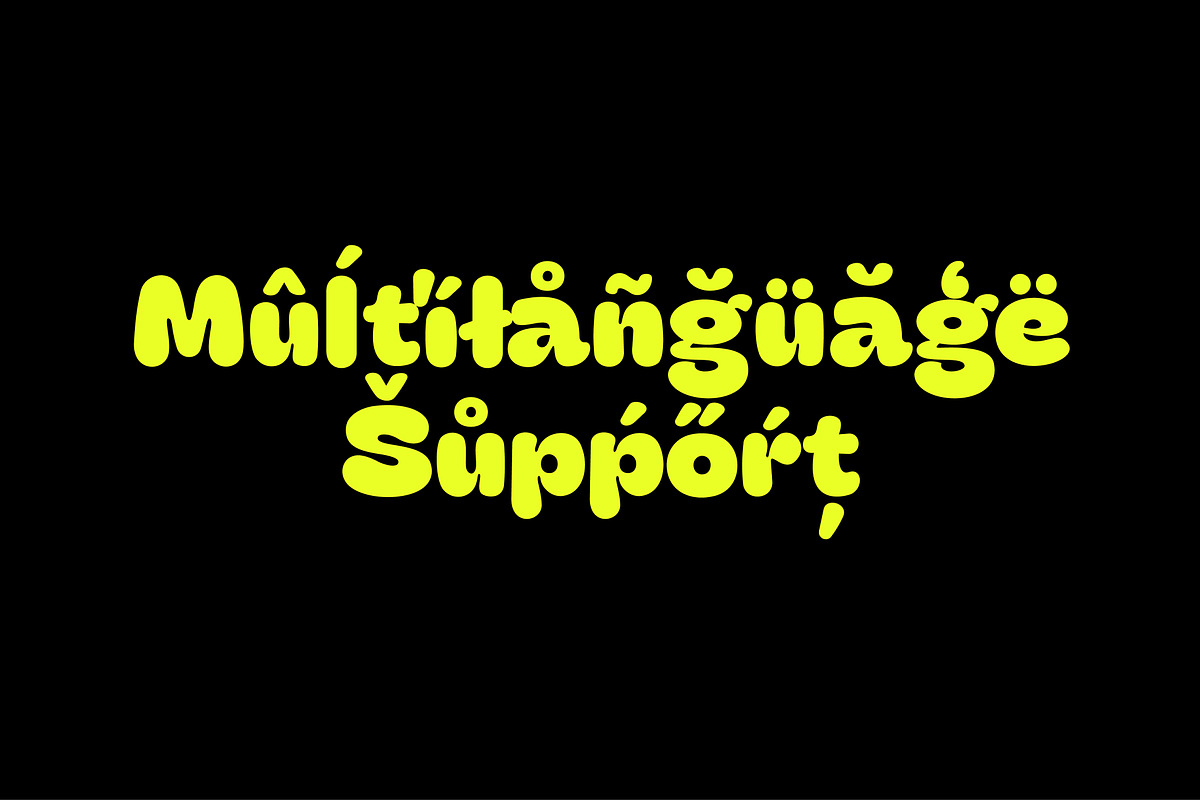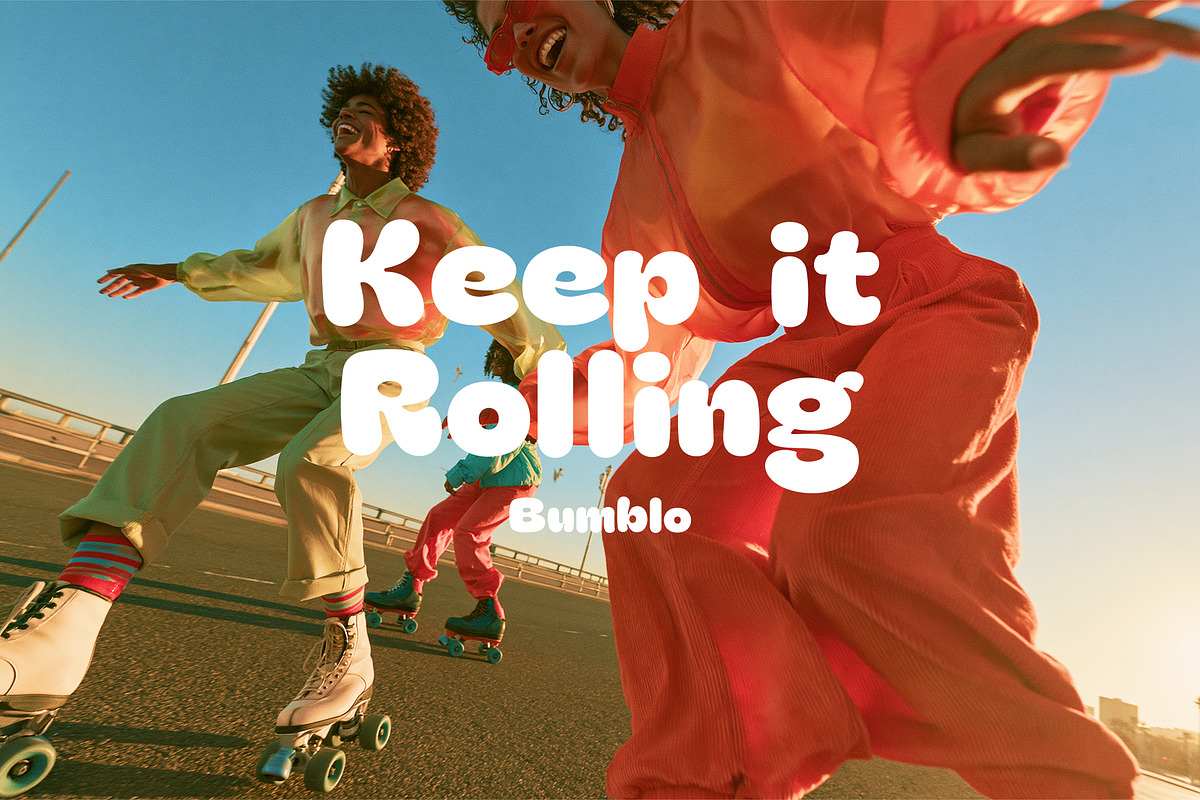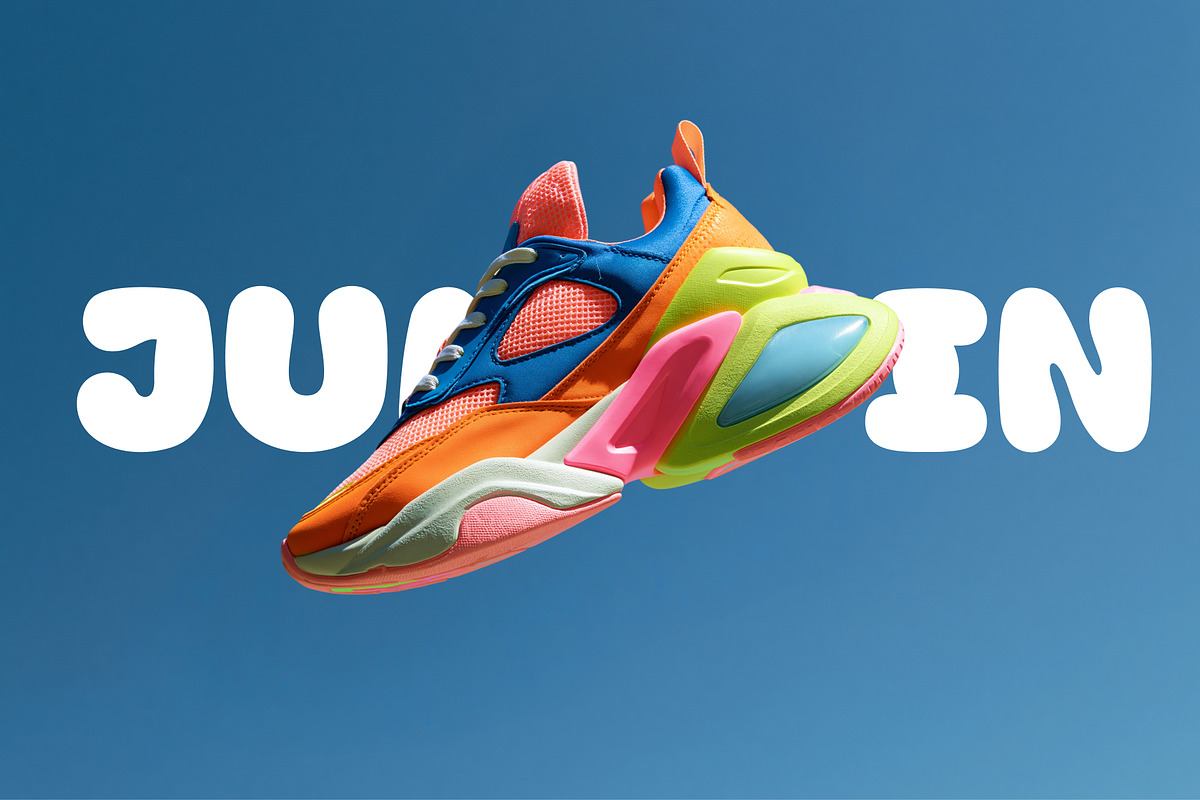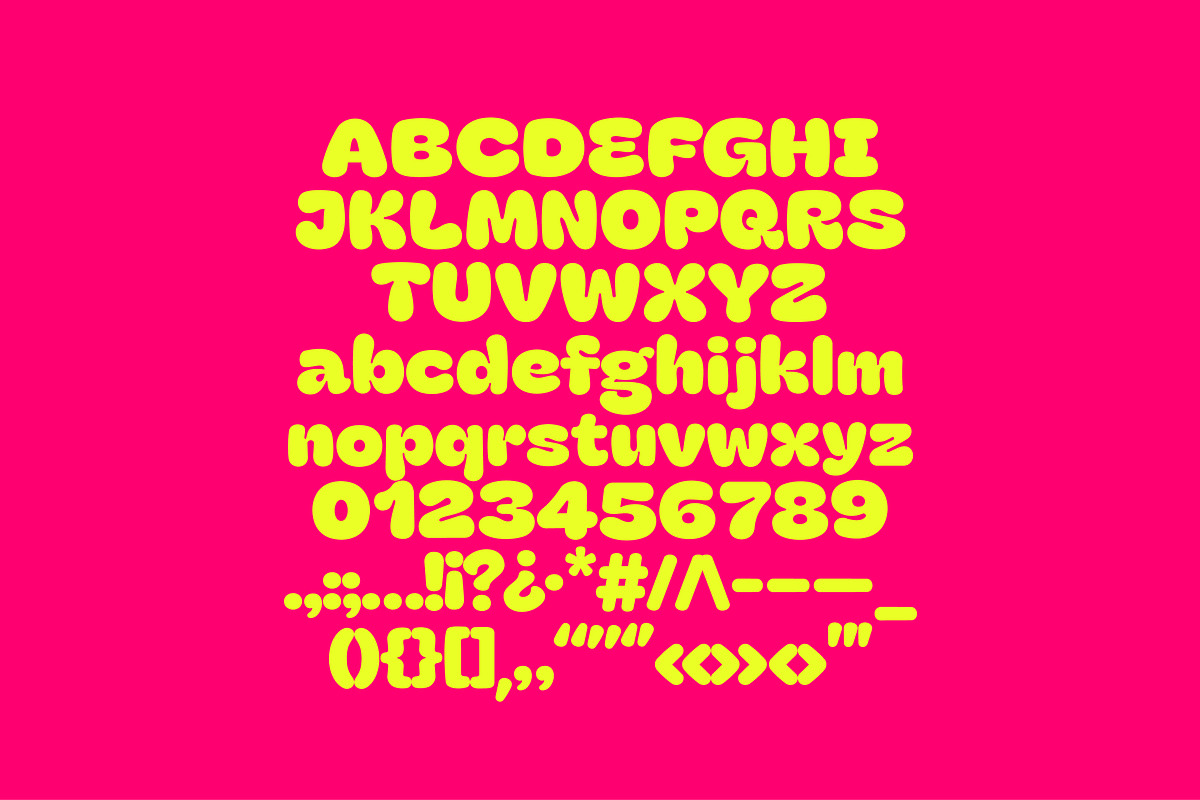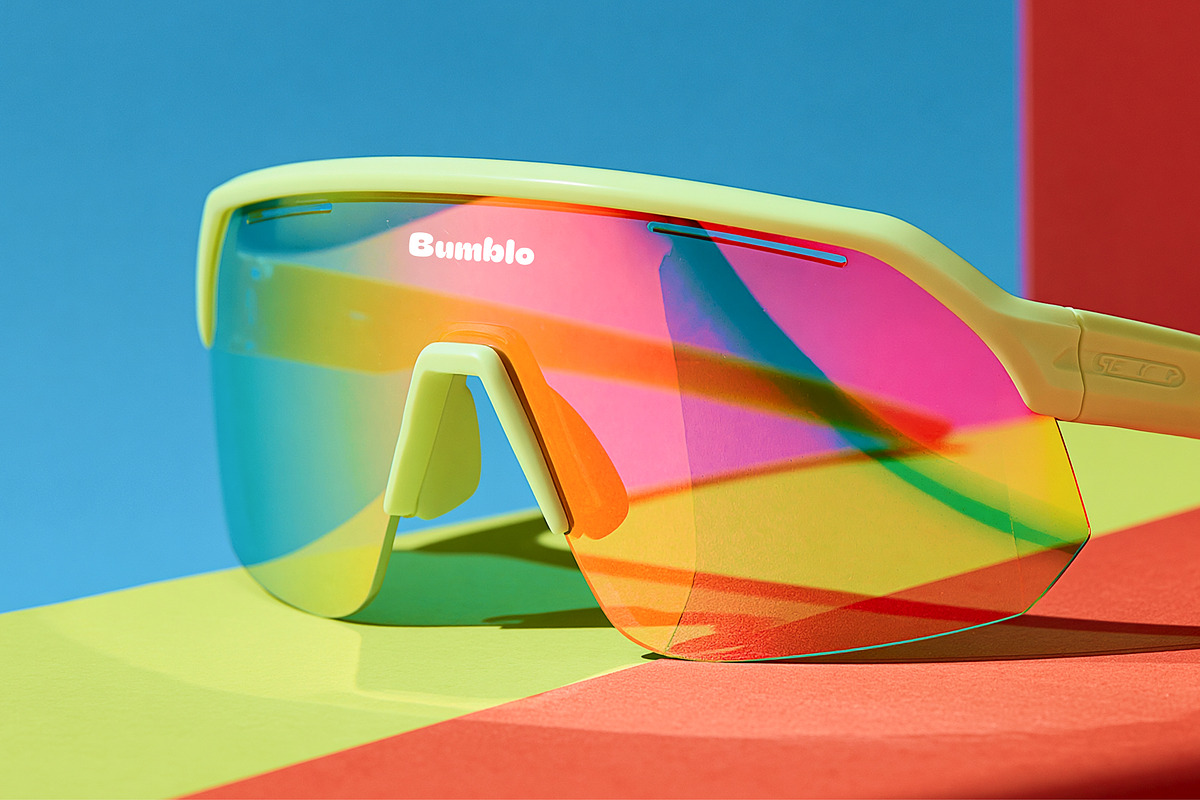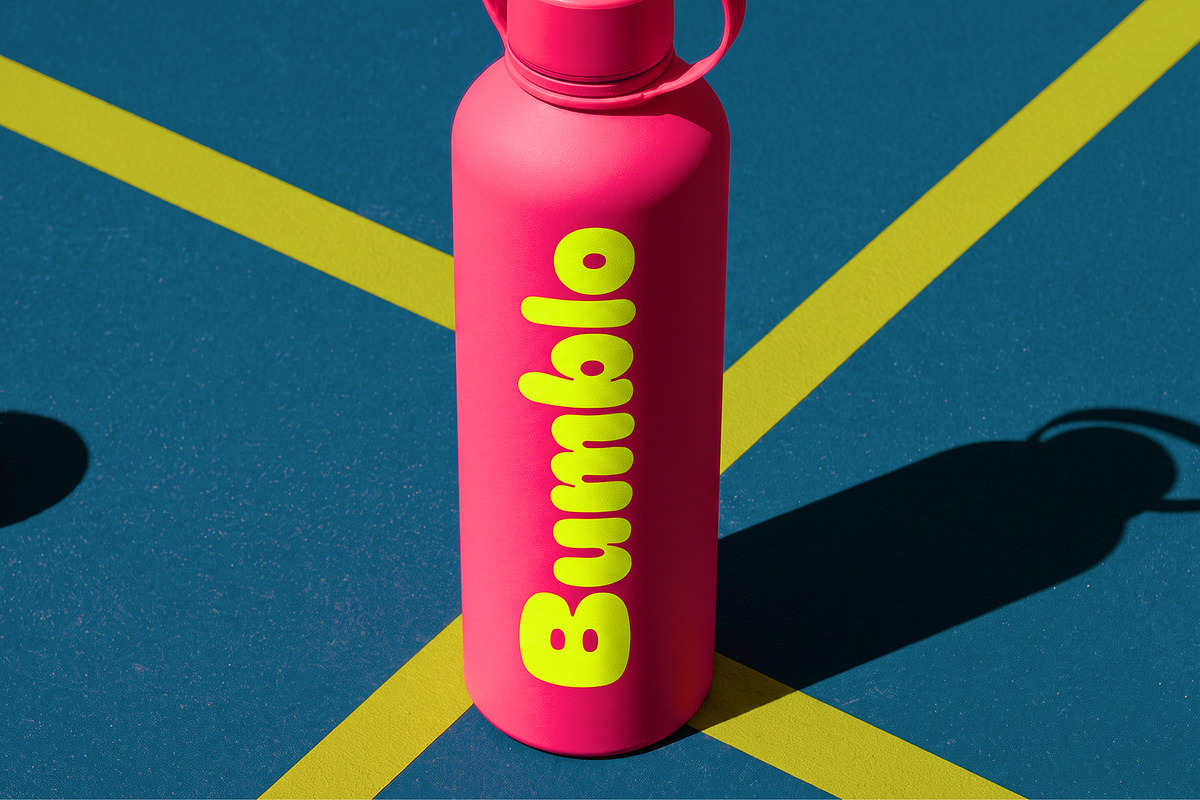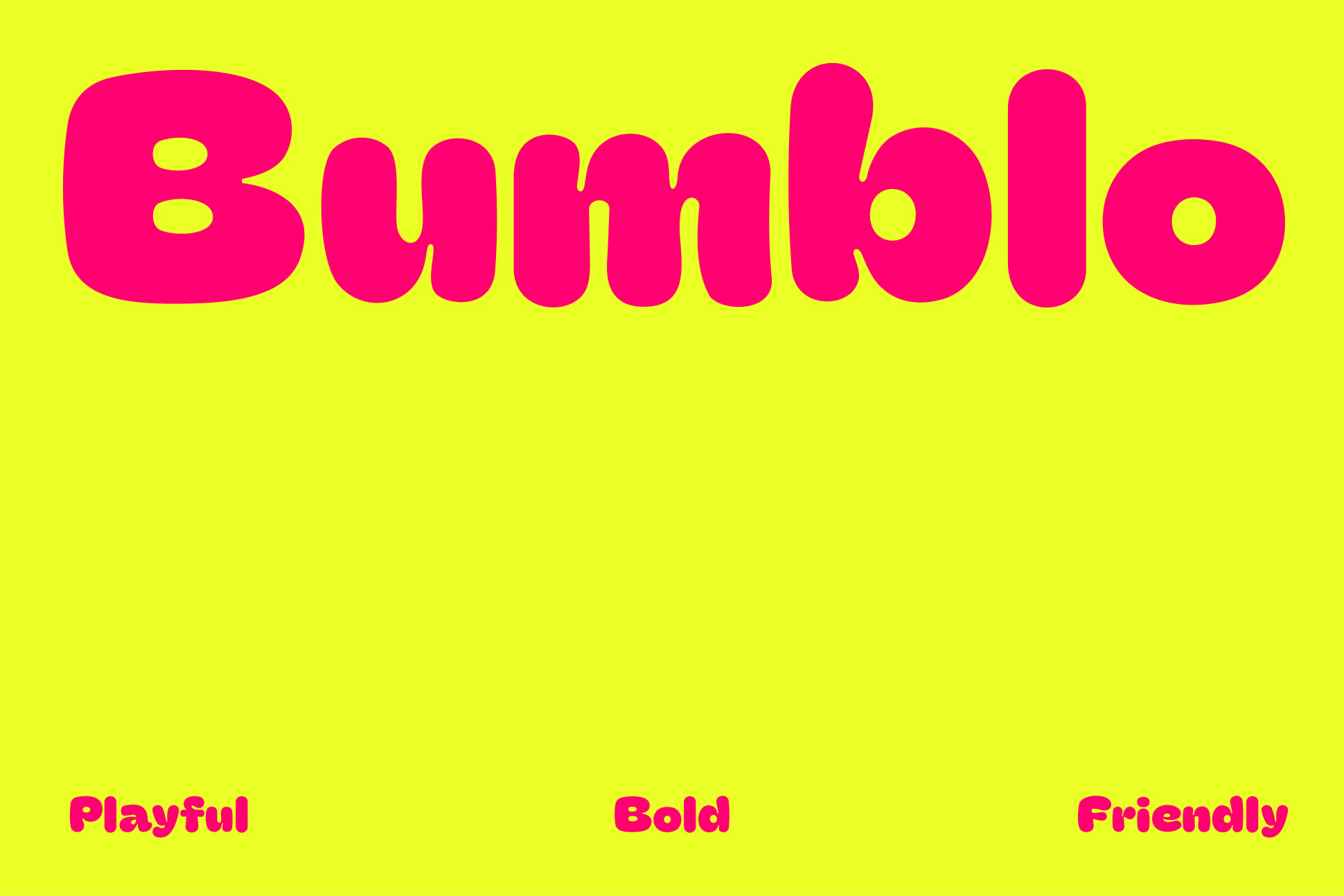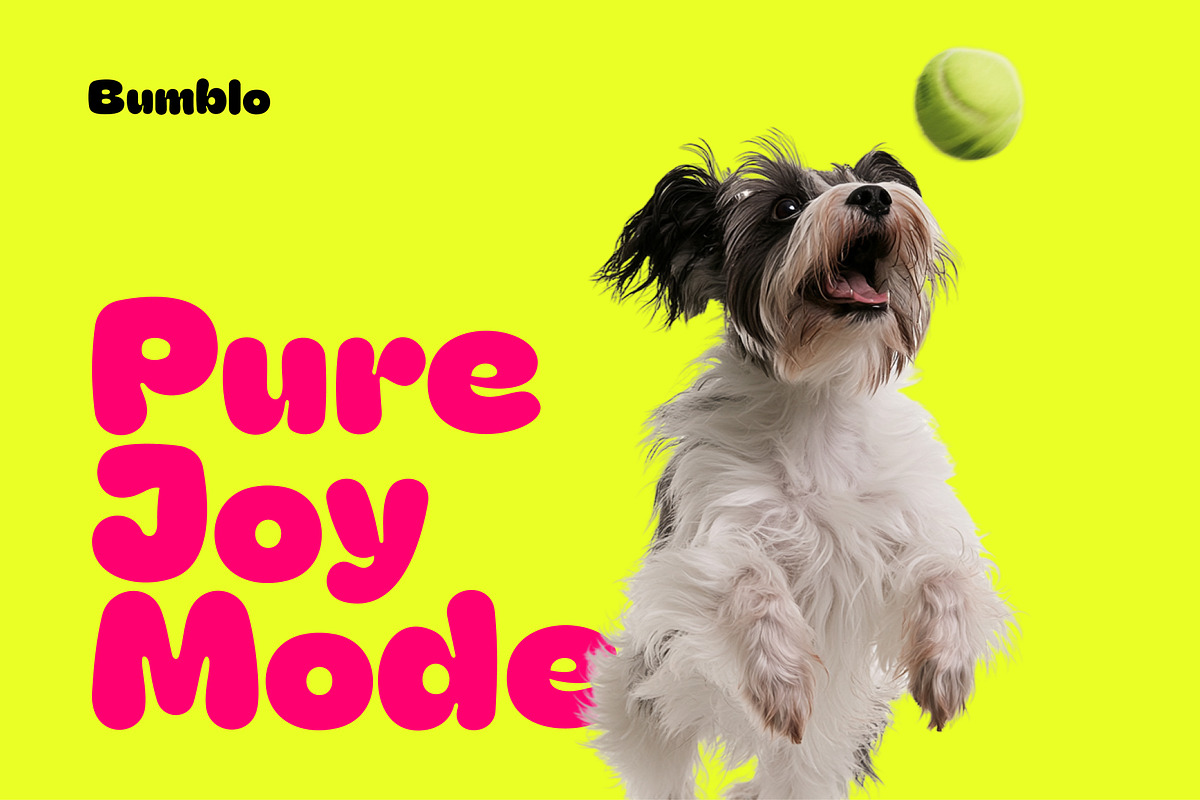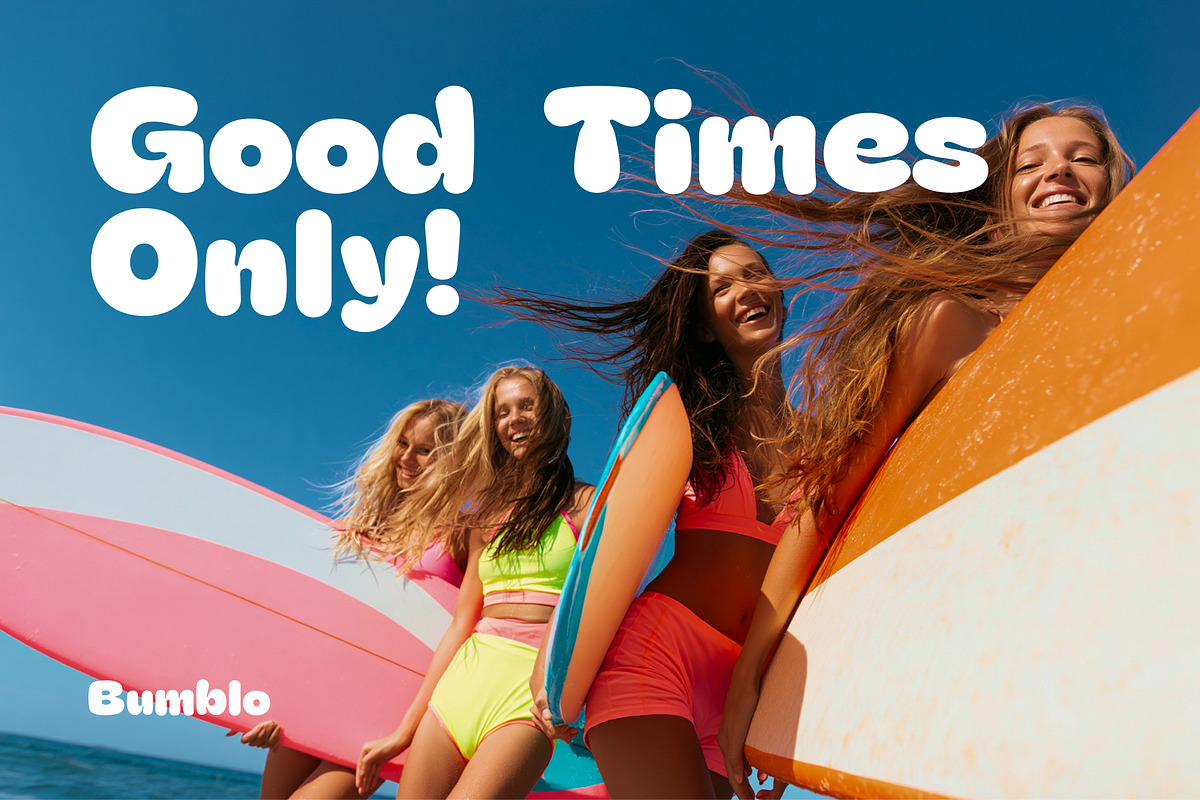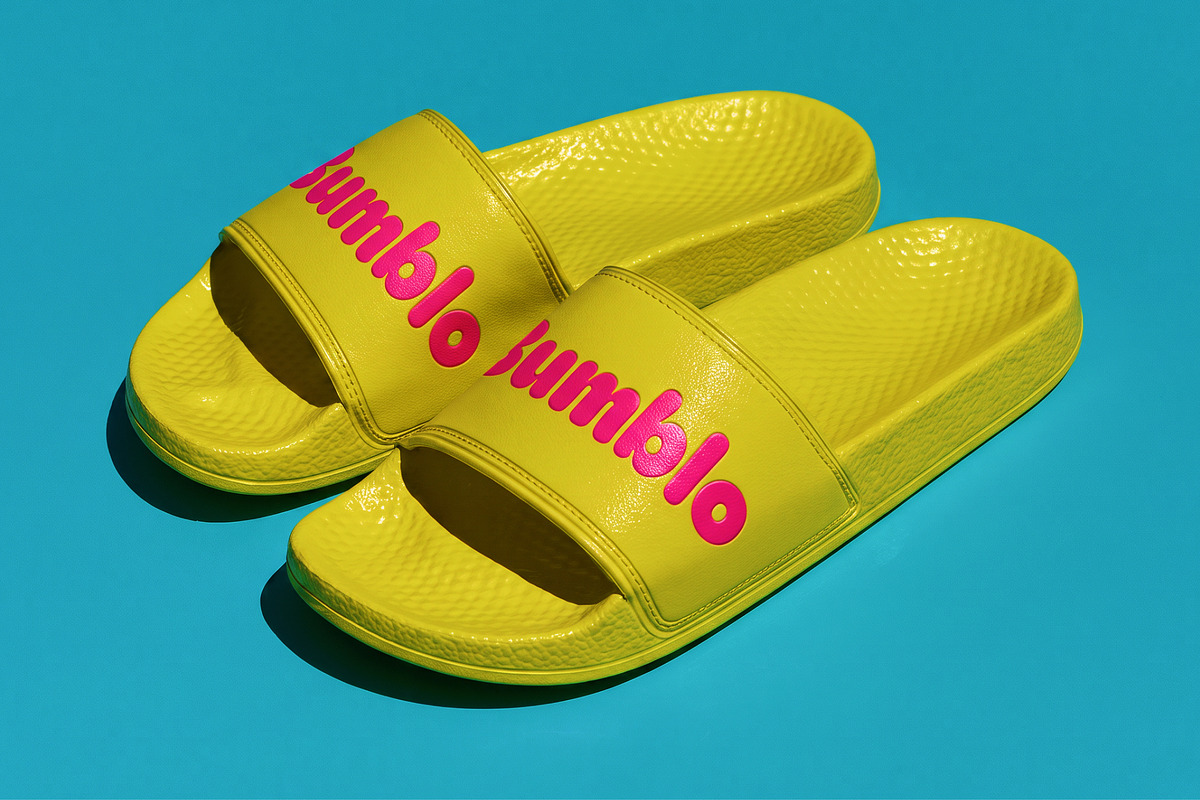
Bumblo is a bold display font.
Bumblo is a bold, rounded display font with soft shapes and a playful personality. Designed for expressive headlines, branding, packaging, posters, merchandise and colorful editorial projects.
Uppercase and lowercase Latin alphabet
Extended Latin characters and diacritics
Numerals 0–9
Standard and extended punctuation
Quotes, brackets and symbols
Uppercase and lowercase alternation for expressive layouts
Optimized for display typography
Perfect for bold titles, logos, packaging, social media, sports, lifestyle, food, kids and youth-focused design.